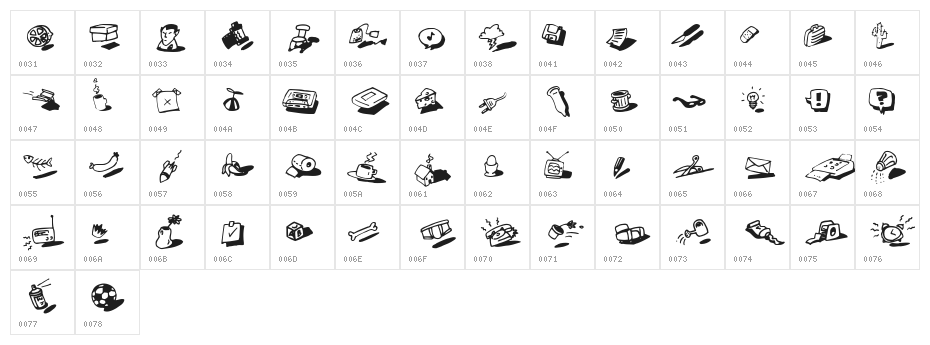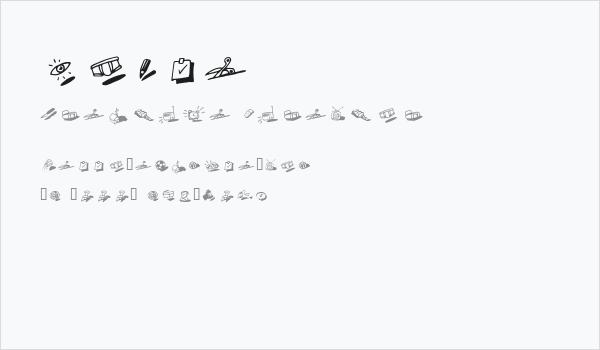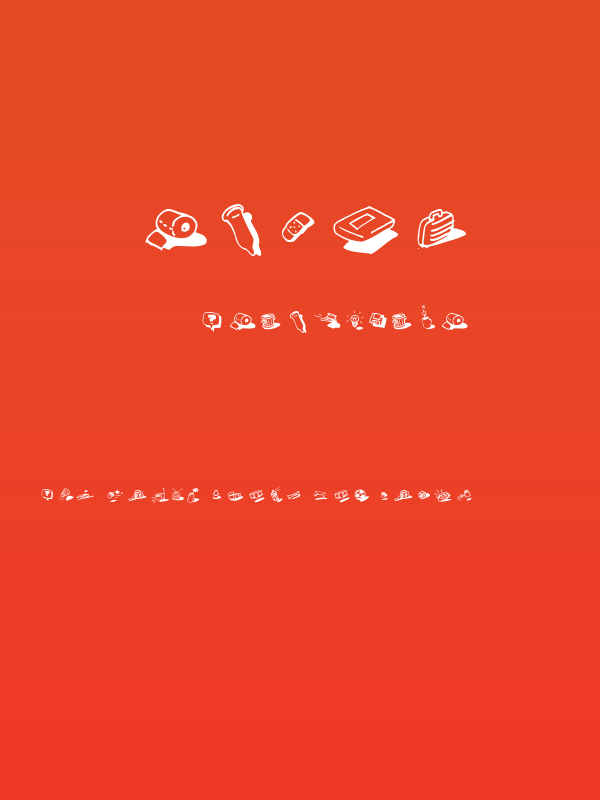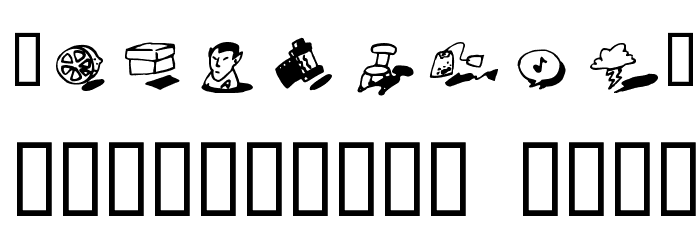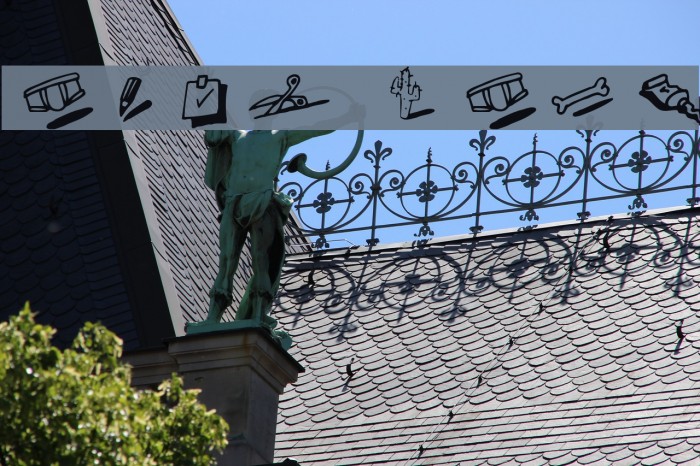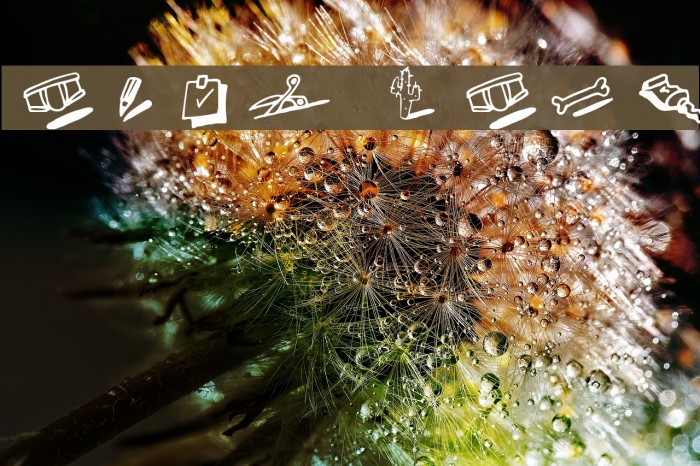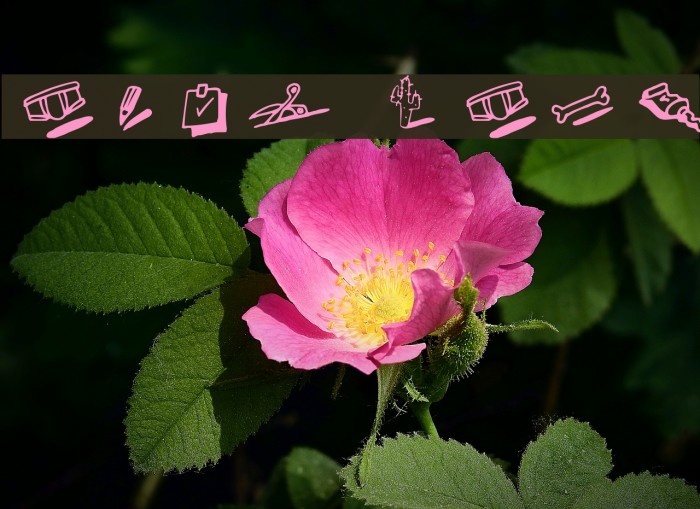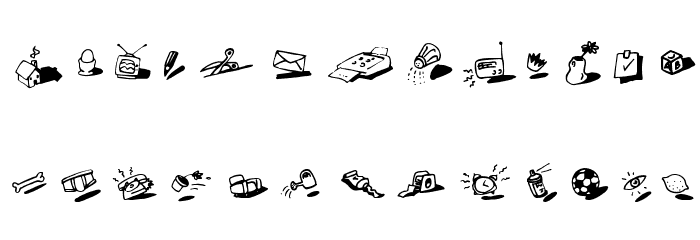
yodle Font
yodle Description
A playful, hand-drawn dingbat font featuring a variety of whimsical icons and objects, each character represented by a unique illustration rather than traditional letterforms.
| Overall Style | Playful, Whimsical, Decorative |
| Use Case | Icons, Decorative elements, Themed graphics |
| Proposed Projects | Children’s books, educational materials, playful branding, infographics, creative invitations. |